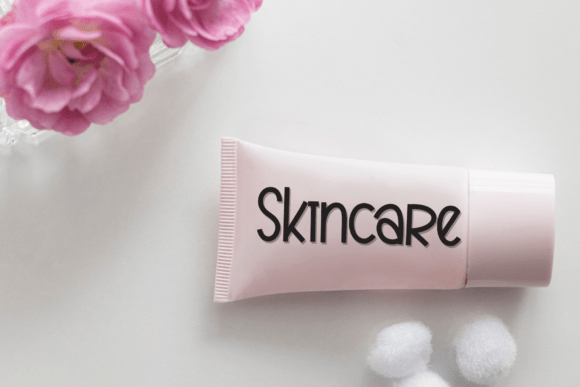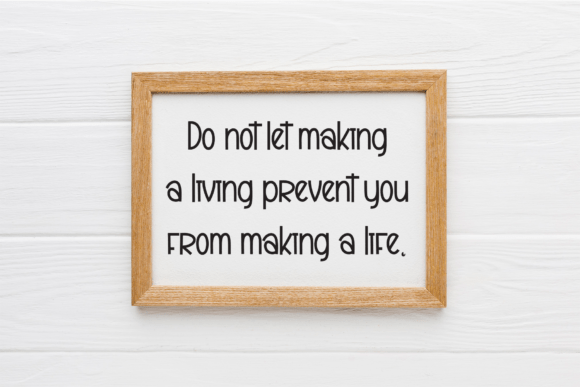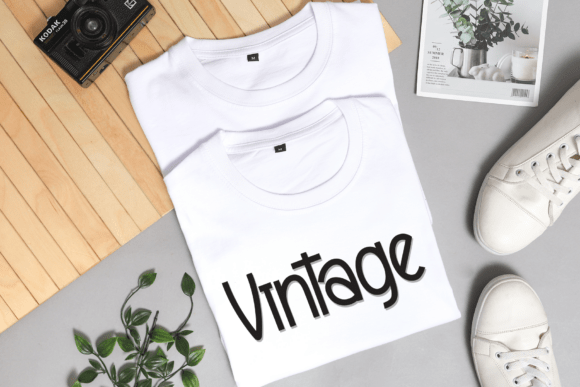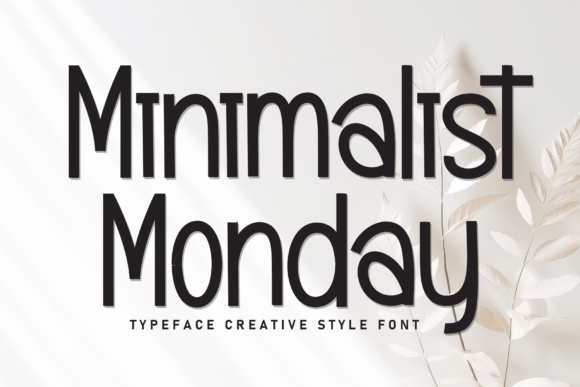
Introduction to Minimalist Monday Font
Minimalist Monday is a sweet and friendly handwritten font.
Why Choose Minimalist Monday Font?
Minimalist Monday Font offers exceptional quality and versatility, making it a valuable addition to your design toolkit. Whether you’re creating for personal projects or commercial use, Minimalist Monday Font delivers professional results.